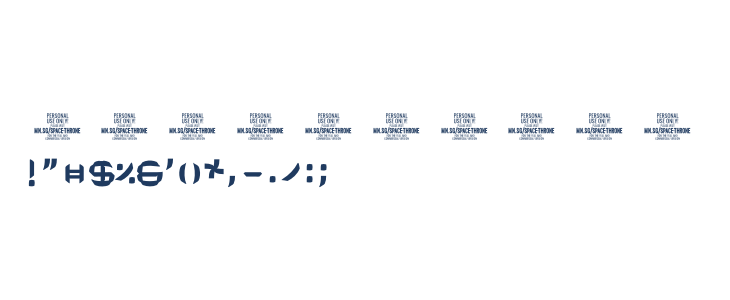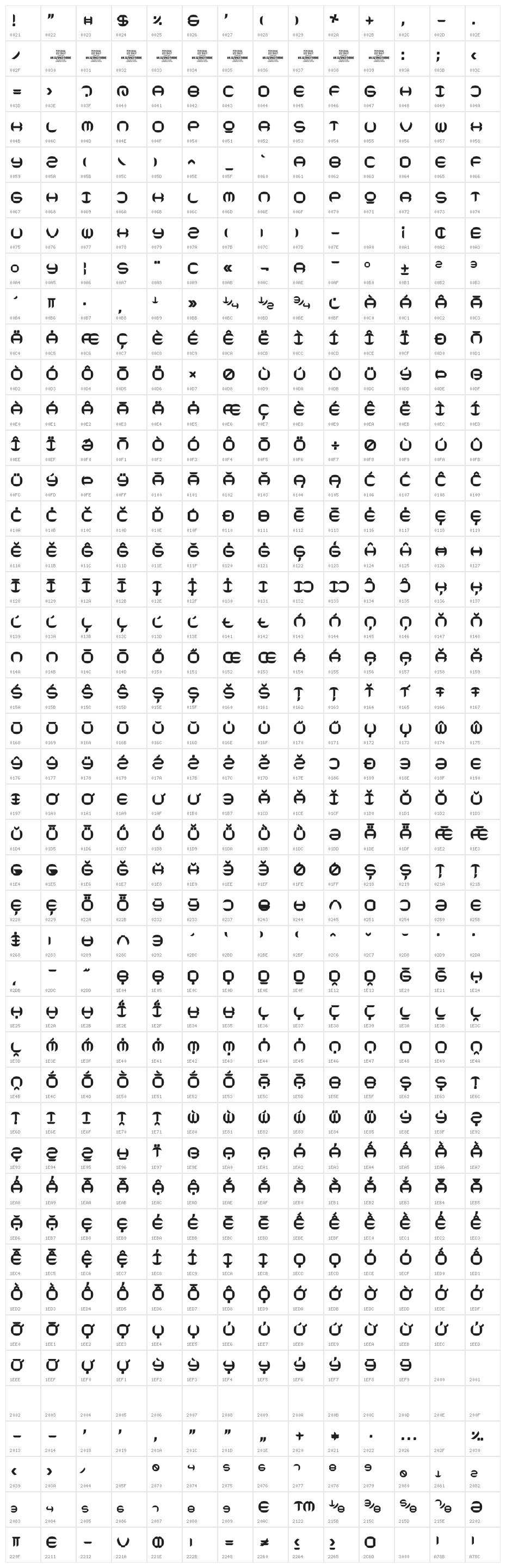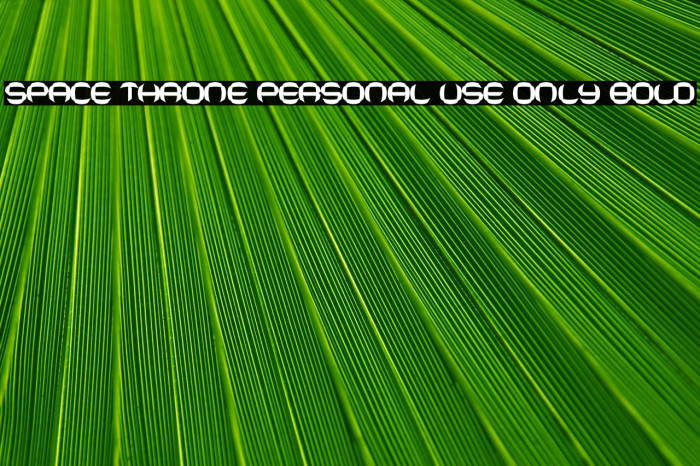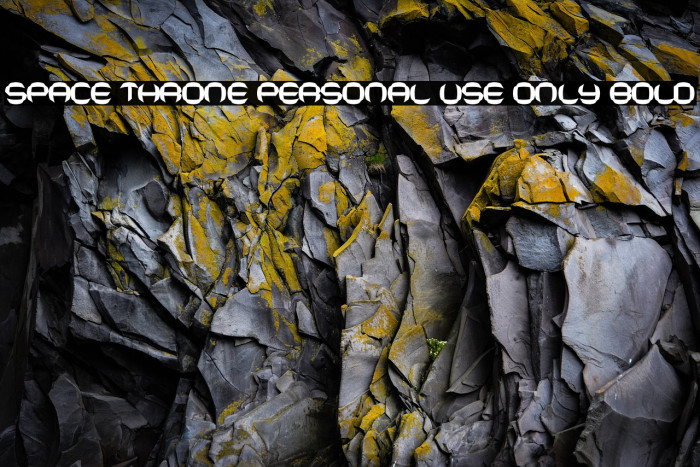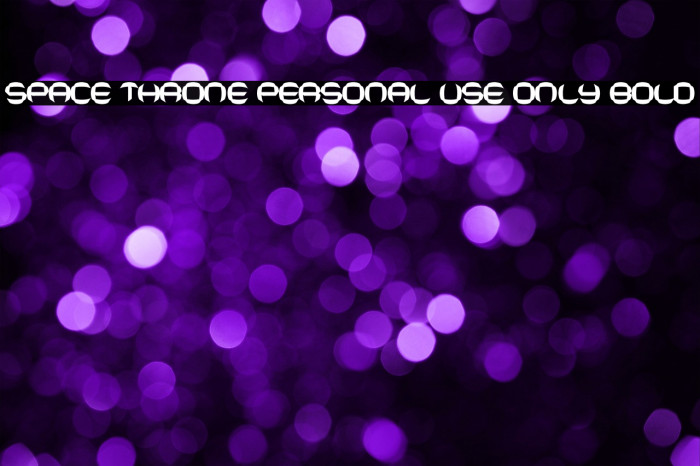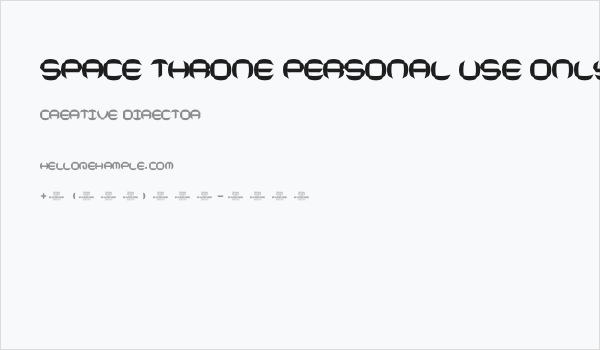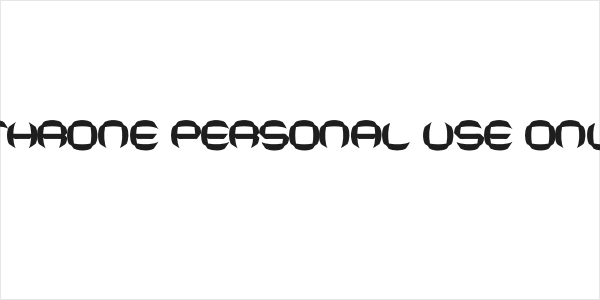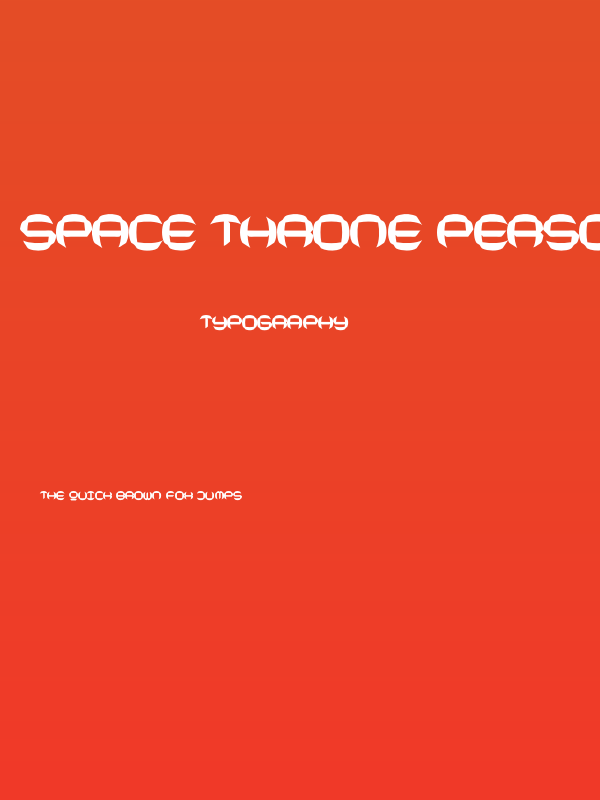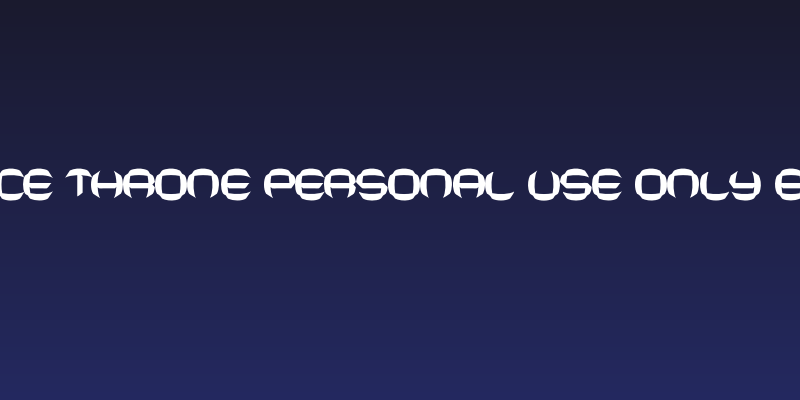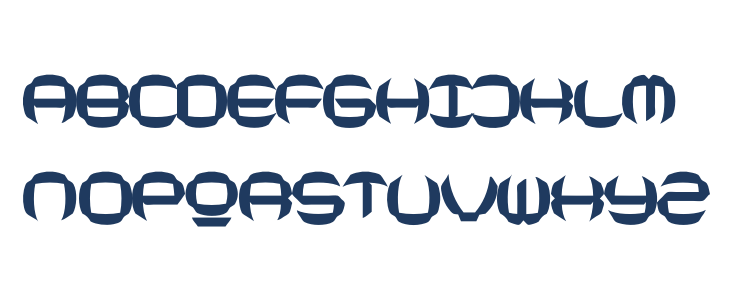
Space Throne PERSONAL USE ONLY Bold Font
Space Throne PERSONAL USE ONLY Bold Description
This font features a futuristic and bold design with a distinct geometric style. The characters are crafted with sharp angles and a consistent thickness, giving them a strong and impactful appearance. The uppercase and lowercase letters maintain a cohesive look, with unique cuts and curves that add to the modern aesthetic. The numbers and special characters follow the same design principles, ensuring uniformity across all glyphs. This font is ideal for projects that require a bold and contemporary look, such as sci-fi themed designs or modern branding.
| Proposed Projects | Ideal for sci-fi themed designs, modern branding, tech-related projects, and futuristic posters. |